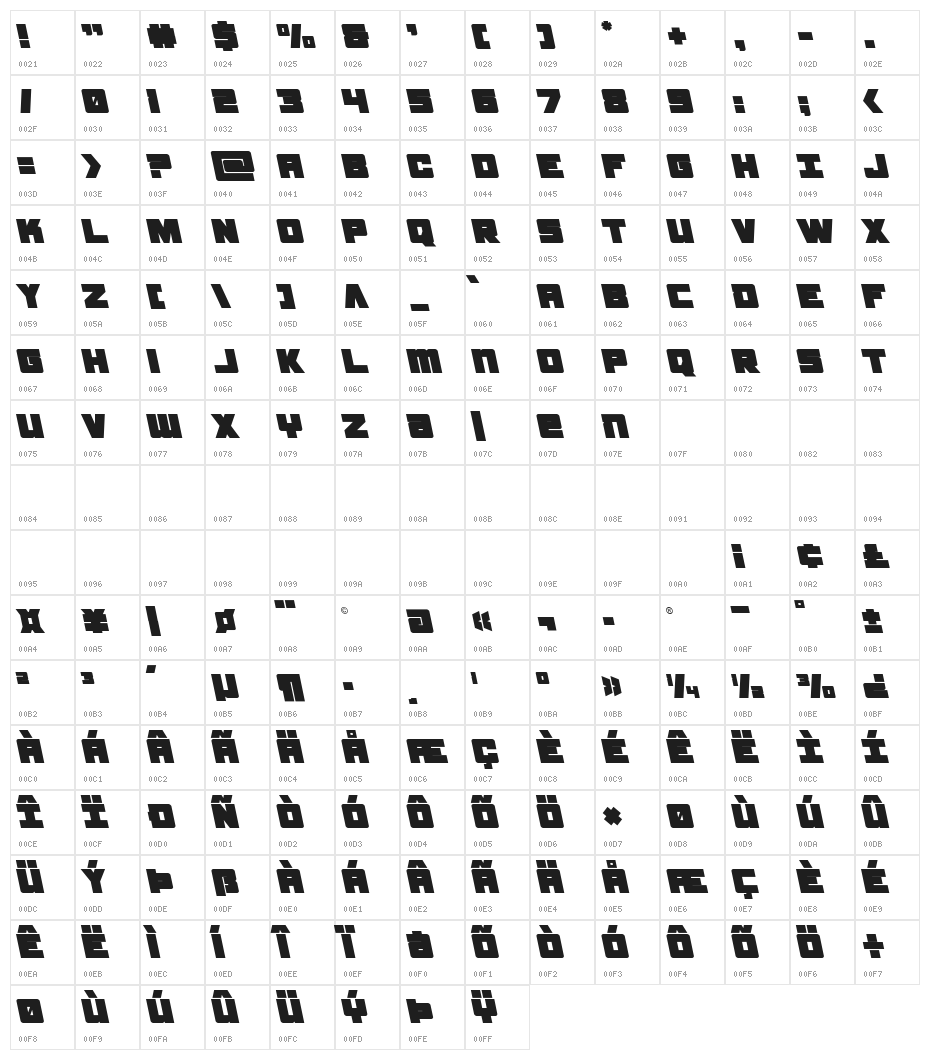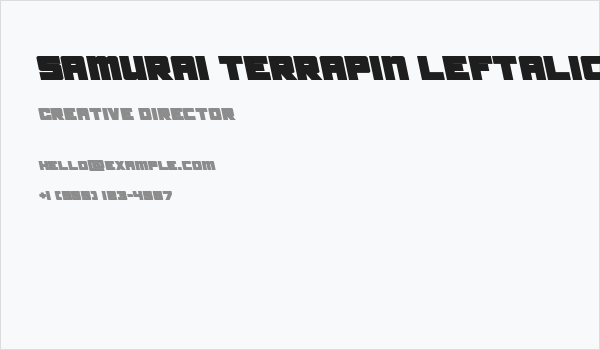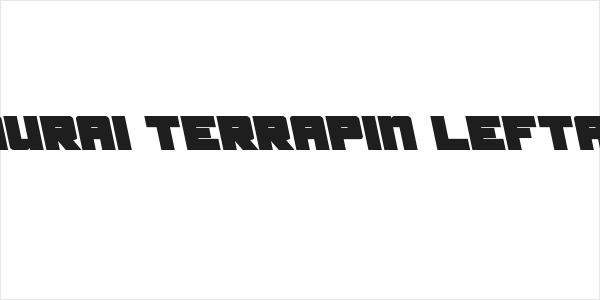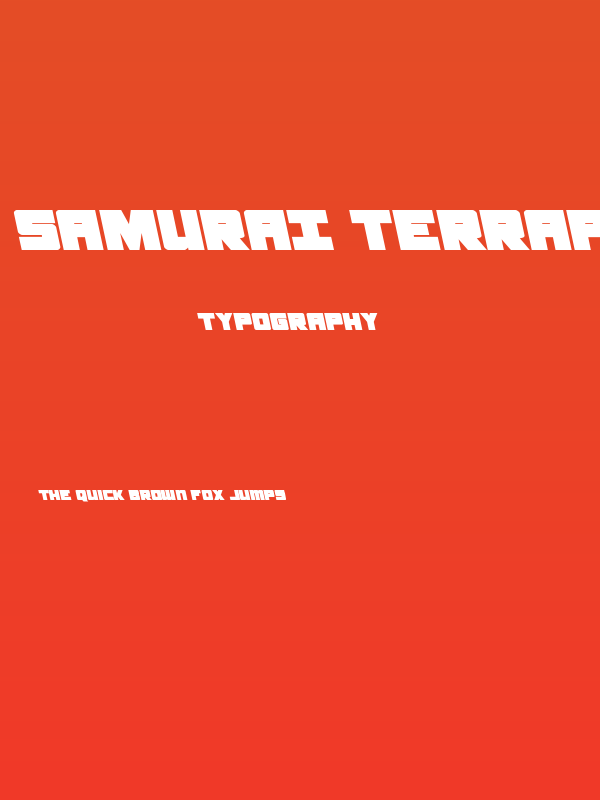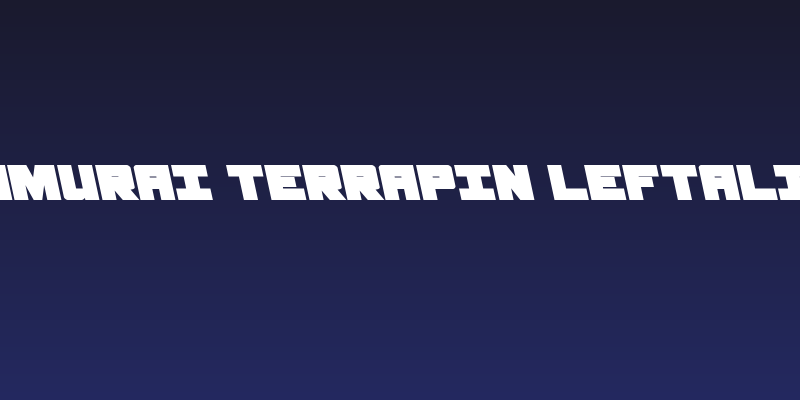
Samurai Terrapin Leftalic Font
Samurai Terrapin Leftalic Description
This font features a bold and angular design with a strong geometric influence. The characters are heavily stylized with sharp edges and a blocky appearance, giving it a futuristic and dynamic feel. The uppercase and lowercase letters maintain a consistent weight, contributing to a uniform look. The numbers and special characters follow the same design principles, ensuring cohesion across all glyphs. The overall style is assertive and impactful, making it suitable for attention-grabbing applications.
| Proposed Projects | Ideal for use in video game titles, sci-fi movie posters, sports branding, and any project requiring a strong, modern aesthetic. |